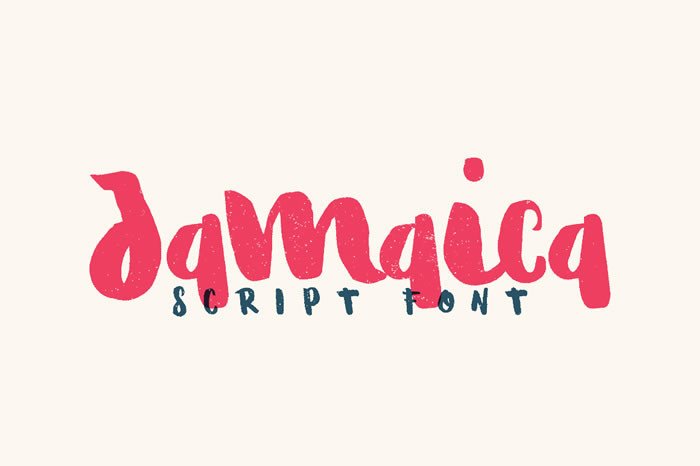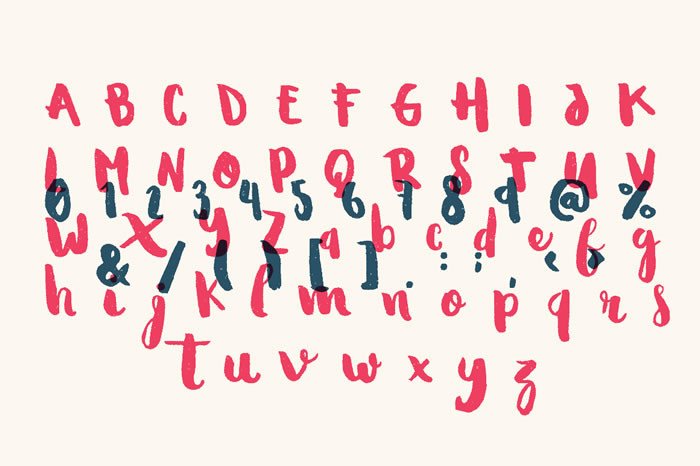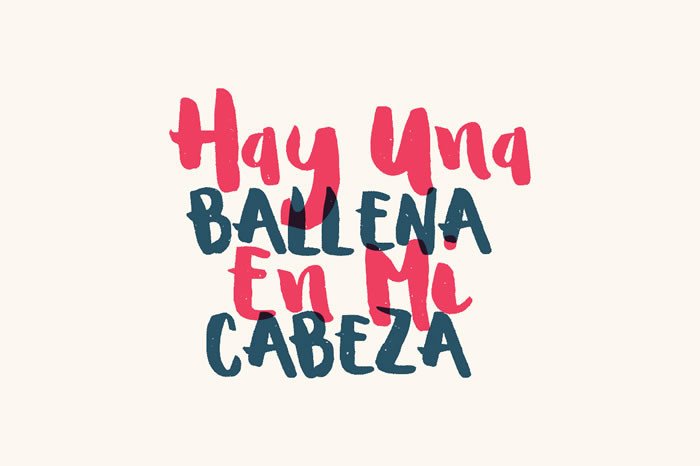
HomeScript FontsJamaica Script Fonts Jamaica FacebookXPinterestWhatsApp 1 of 3 About Jamaica Font Jamaica is a beautiful script font and is perfect to use for logo’s, invitations, posters, quotes, letterheads, birthdays and much more DOWNLOAD NOW People also explored Gobold Font Cabrito Inverto Starkville School Awesome Font Yolmans Zemicka Font Faradilla Font Berlindah Font Jartifisa Font Chasing Snowflakes Font 296 0 TagsJamaicaJamaica Font Previous articleFonts That Capture the Spirit of New York CityNext articleHolga LEAVE A REPLY Cancel reply Comment: Please enter your comment! Name:* Please enter your name here Email:* You have entered an incorrect email address! Please enter your email address here Website: Save my name, email, and website in this browser for the next time I comment. Personal Use Free Wanita Cantik Personal Use Free Read more about this font Mixed Artistry Personal Use Free Read more about this font Rozalyn Personal Use Free Read more about this font BD Pipe Personal Use Free Read more about this font BLOG Modern Sans-Serif Fonts That Brands Love in 2025 In 2025, modern sans-serif fonts remain a top choice for brands looking to project clarity, professionalism, and... Top 10 Handwritten Fonts That Elevate Your Designs How to Cut Any Font on Cricut: Convert a Font to SVG (Free) Transform Your Website: Elevate Your Typography with 7 Best Web Font Generators